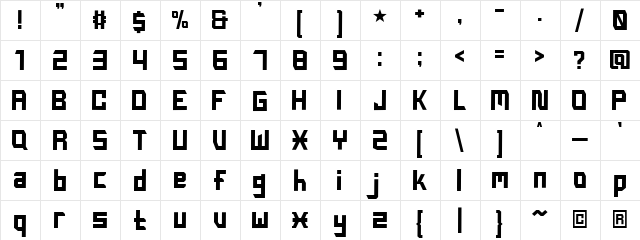
Peradaban Regular
Design Context for Peradaban Typeface
Peradaban is a composed and adaptable typeface that performs quietly and consistently across a wide range of design contexts.